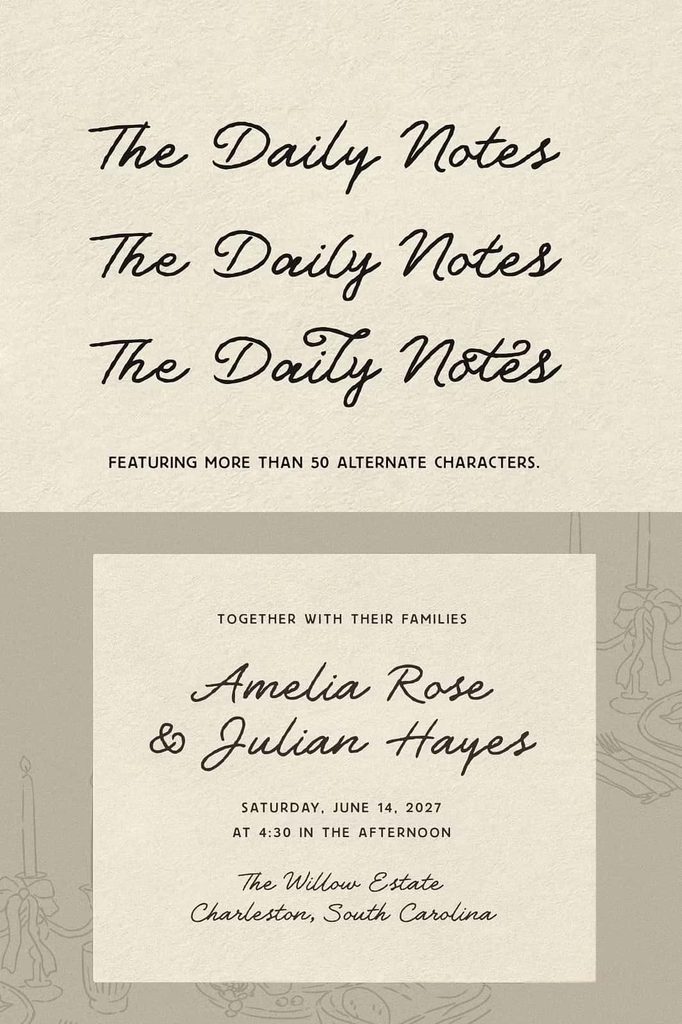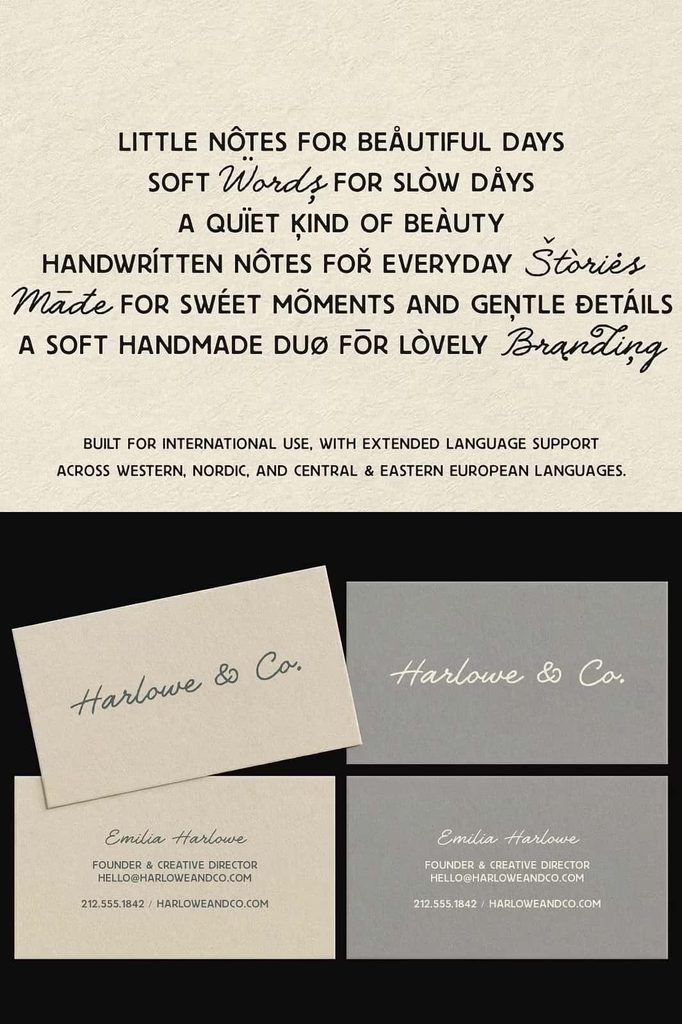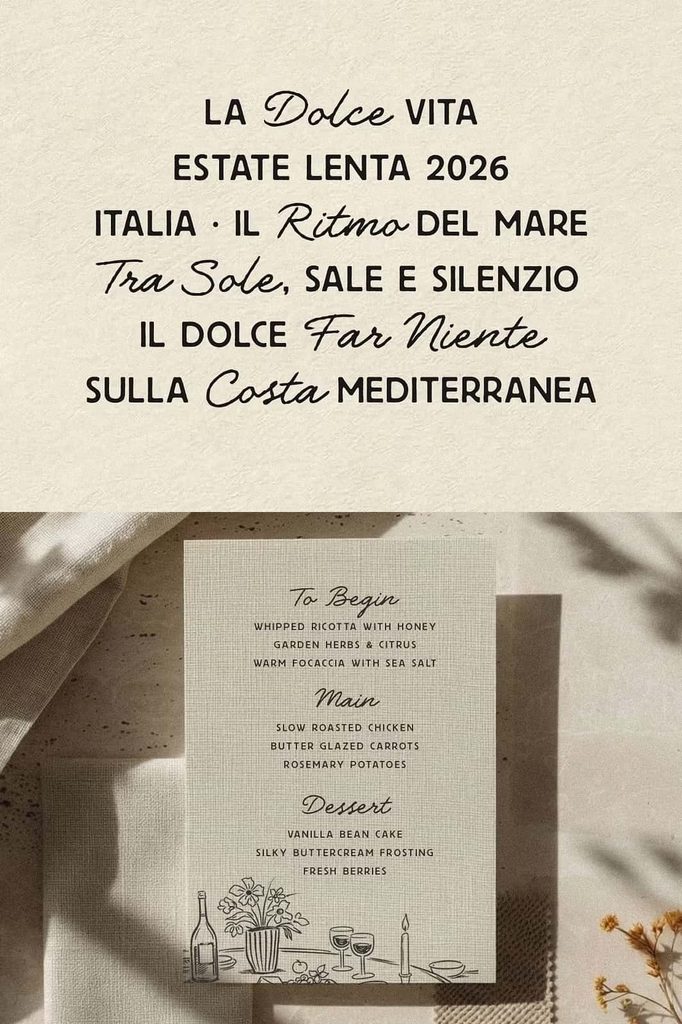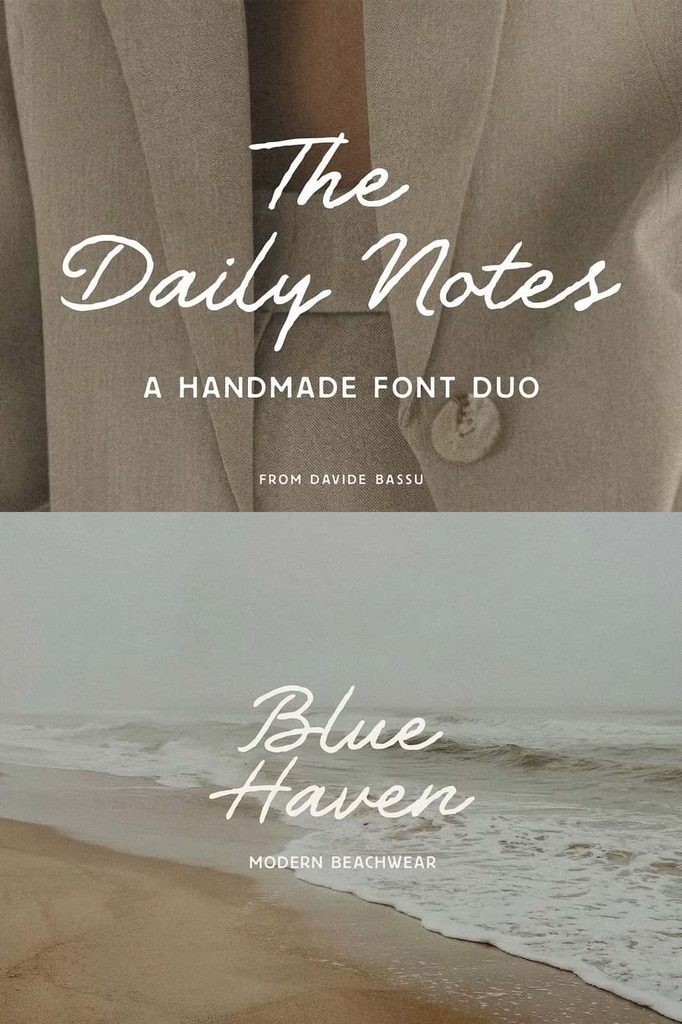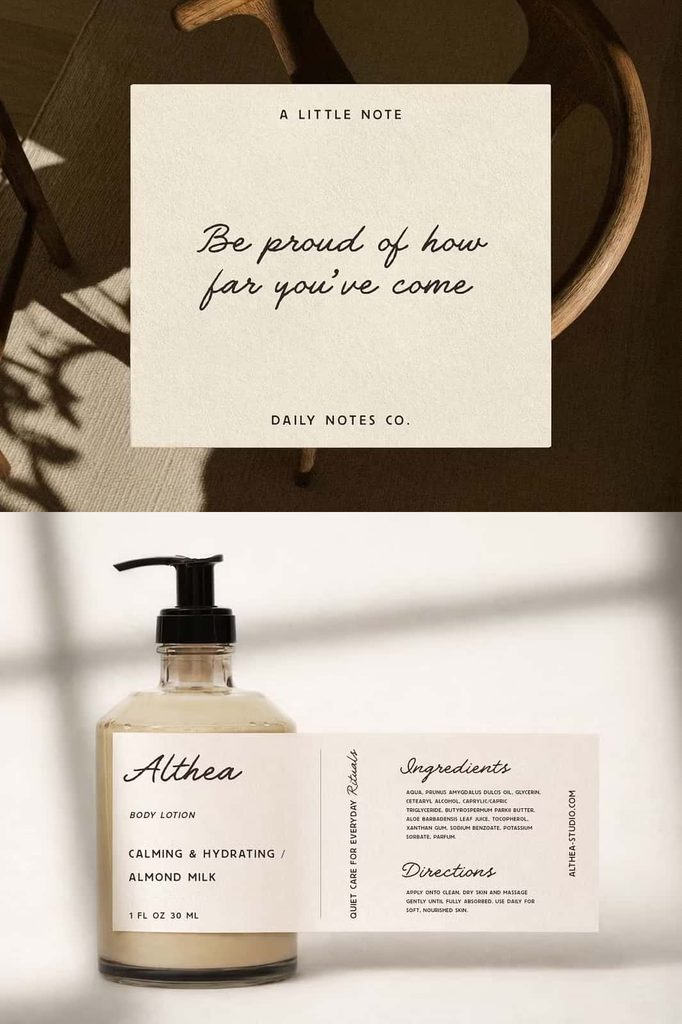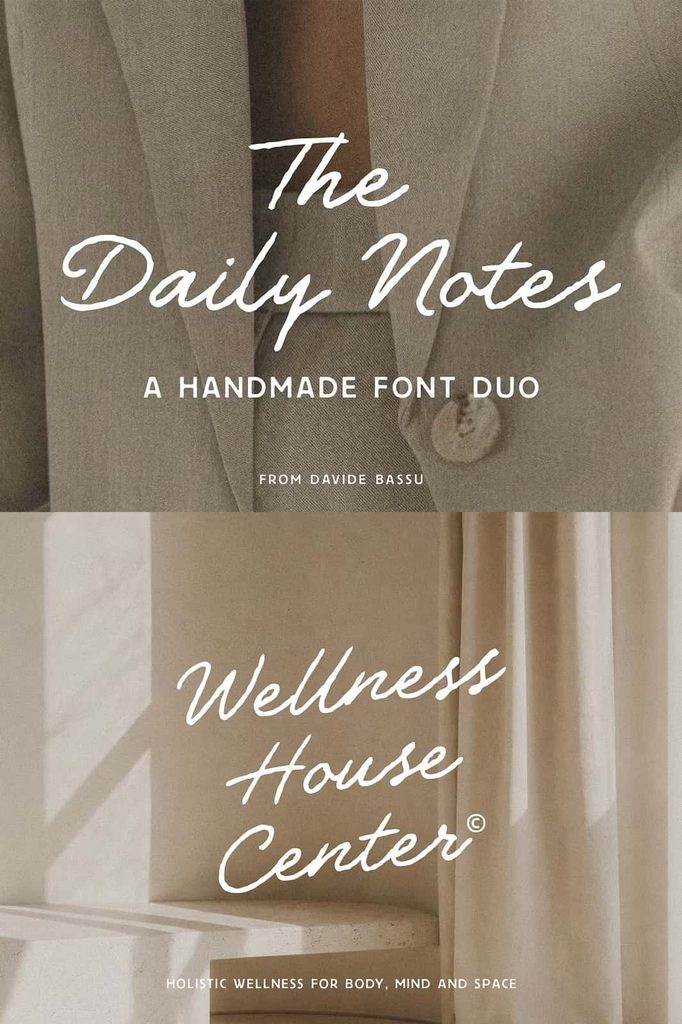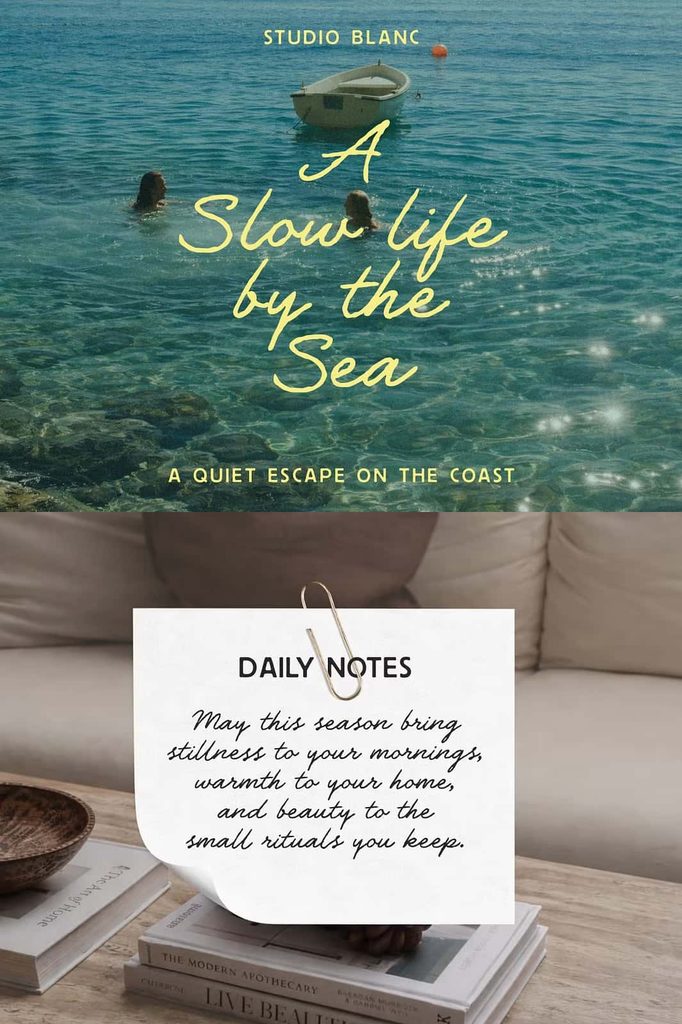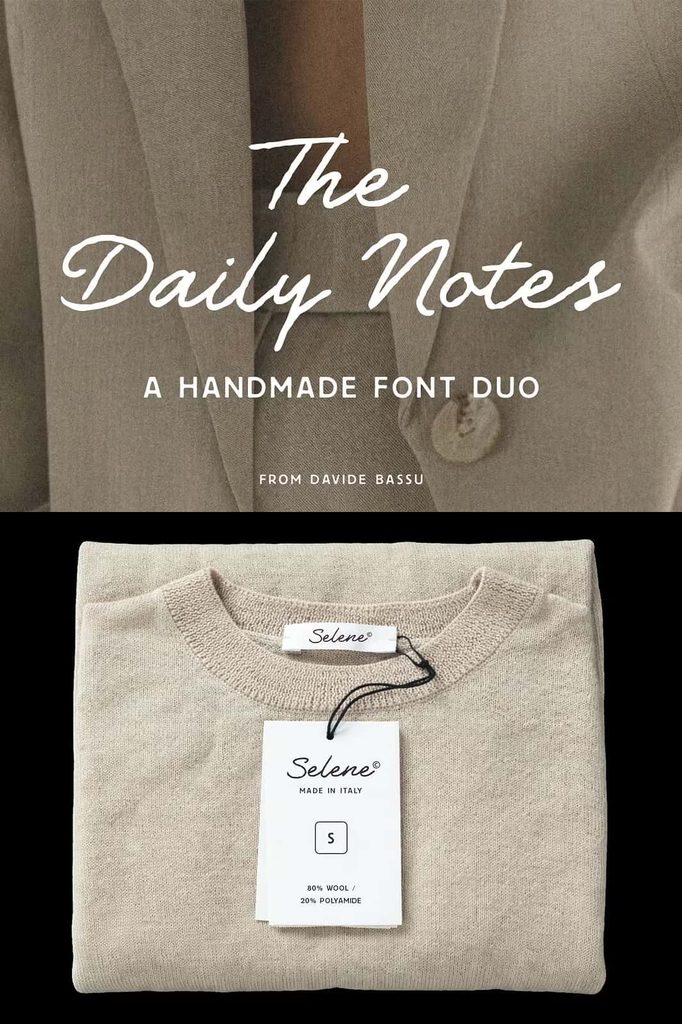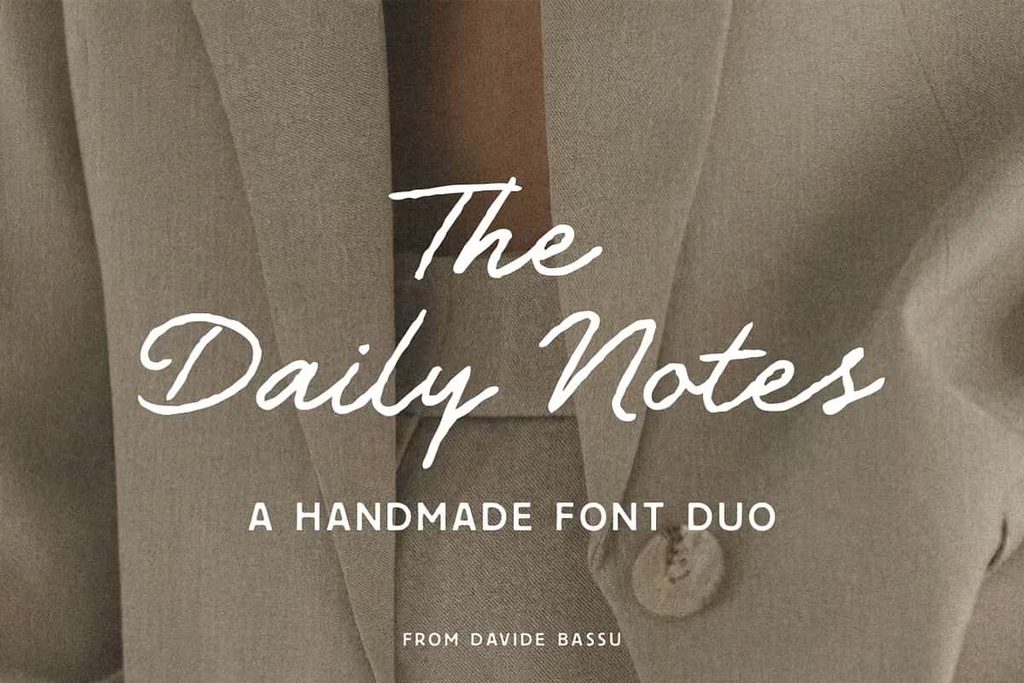
The Daily Notes – Script and Sans
The Daily Notes Font – An Authentic and Approachable Font Pairing
The Daily Notes Font brings together expressive handwriting and modern simplicity in one versatile font pairing. Designed for creative projects that need an authentic, approachable, and friendly appearance, The Daily Notes combines a relaxed hand-drawn script with a clean modern sans-serif. Together, these complementary styles give designers a practical typographic toolkit for creating memorable branding, attractive packaging, engaging digital content, and polished promotional materials.
The pairing balances personality with functionality. The hand-drawn script adds warmth, movement, and a natural human touch, while the modern sans-serif provides structure and clarity. Instead of forcing you to search for separate fonts that work well together, The Daily Notes gives you two coordinated styles that can create a consistent visual identity across a wide range of projects.
Whether you are building a new brand, designing product packaging, preparing social media graphics, creating stationery, or developing website content, The Daily Notes helps you communicate with confidence while maintaining a relaxed visual tone. Its approachable character makes it especially useful for brands and designers who want to feel personal, contemporary, and authentic.
A Balanced Combination of Handwritten and Modern Typography
The Daily Notes achieves its distinctive character by combining two contrasting but complementary styles. The relaxed hand-drawn script brings the emotional and decorative side of the pairing, while the clean sans-serif handles information that requires greater readability and structure.
This relationship allows you to build clear visual hierarchy without making your design complicated. Use the script for the elements that need personality and attention, such as brand names, headlines, short phrases, and decorative statements. Then use the sans-serif for supporting information, descriptions, captions, labels, and other functional text.
By assigning a clear purpose to each style, you can create compositions that feel organized while still maintaining a creative personality. The contrast also gives you plenty of opportunities to experiment with scale, spacing, alignment, and placement.
Relaxed Hand-Drawn Script
The hand-drawn script gives The Daily Notes its warm and personal identity. Its relaxed appearance creates the feeling of natural handwriting, helping digital designs feel more human and approachable.
Use the script when you want to introduce emotion or personality into a composition. It works beautifully for short quotes, brand names, product titles, greeting cards, invitations, social media headlines, packaging accents, and promotional messages.
The handwritten style can also create a strong connection with handmade and lifestyle-oriented brands. Combine it with photography, illustrations, organic shapes, or subtle textures to reinforce a casual and authentic atmosphere.
Clean Modern Sans-Serif
The modern sans-serif provides the practical side of The Daily Notes pairing. Its clean structure creates an excellent contrast against the expressive script and gives your layouts a professional foundation.
Use the sans-serif for supporting headlines, body copy, product descriptions, website text, captions, menus, labels, and other information that needs to remain clear and easy to read. Its contemporary appearance prevents the overall design from becoming overly decorative.
This combination makes The Daily Notes especially flexible. You can create a warm and handcrafted appearance without sacrificing the clean communication that modern design demands.
The Daily Notes Font for Branding
The Daily Notes works exceptionally well for branding projects that need a friendly and authentic personality. The hand-drawn script can establish the main character of a brand, while the sans-serif can support the identity with clean secondary typography.
Use the pairing for logos, wordmarks, taglines, business cards, brand stationery, social media templates, product labels, and promotional materials. It can suit creative studios, boutique businesses, lifestyle brands, cafés, stationery companies, handmade products, fashion labels, beauty businesses, and other brands that want to communicate warmth and approachability.
For a simple brand identity, use the script for the primary logo or brand name and place the sans-serif beneath it for a descriptor or tagline. This creates an immediate hierarchy while allowing both styles to contribute to the identity.
Create Attractive Packaging Designs
The Daily Notes can transform product packaging with a combination of personality and clarity. Use the hand-drawn script to highlight product names, flavors, collections, or short promotional messages. Then introduce the sans-serif for ingredients, descriptions, instructions, product information, or other practical details.
When you need typography that feels authentic without losing its modern edge, The Daily Notes offers a balanced solution. Its friendly character, practical structure, and versatile pairing make it an excellent choice for designers who want to create contemporary work with a genuine human touch.